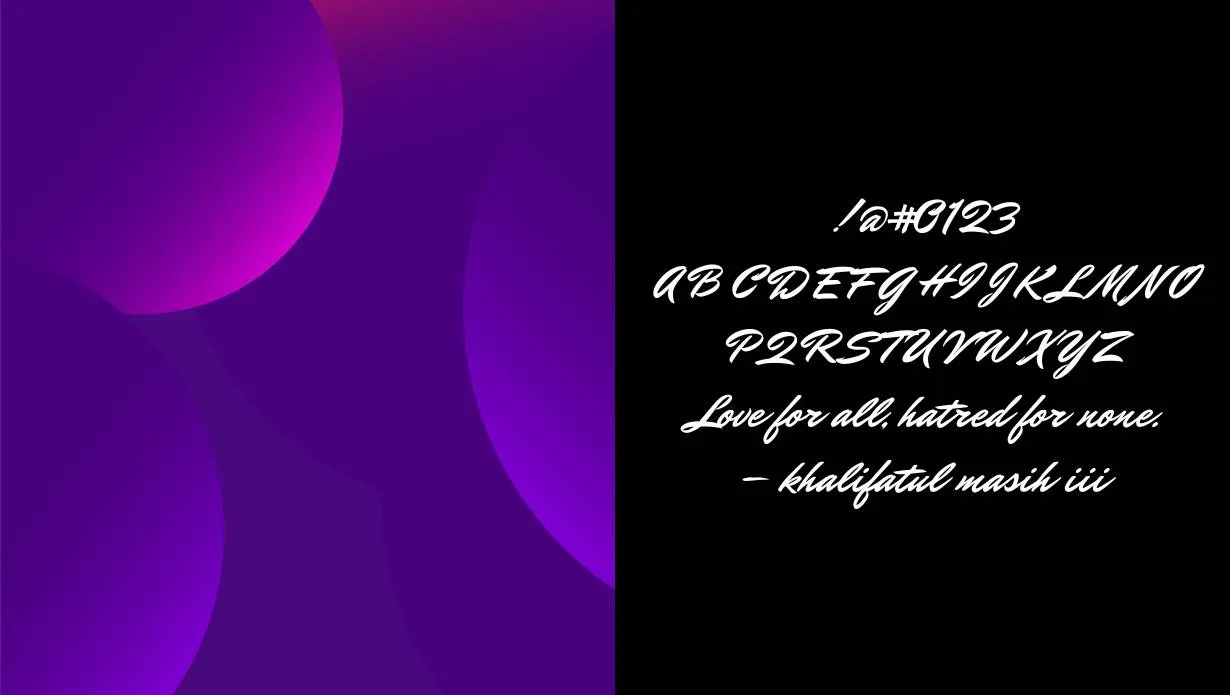
Signature Font is a calligraphy typeface created by Lucas jack in 2004. He is a very talented designer who designed many famous fonts that were used in international projects.
This Font is available in only one regular that has a very unique and lovely appearance.
This gorgeous style of texture supports a free generator tool, to convert any text appearance into this typeface. All its process is online, so this font does not require any download file. The texturing of this typeface is great to work with the pairing of monoline script font.